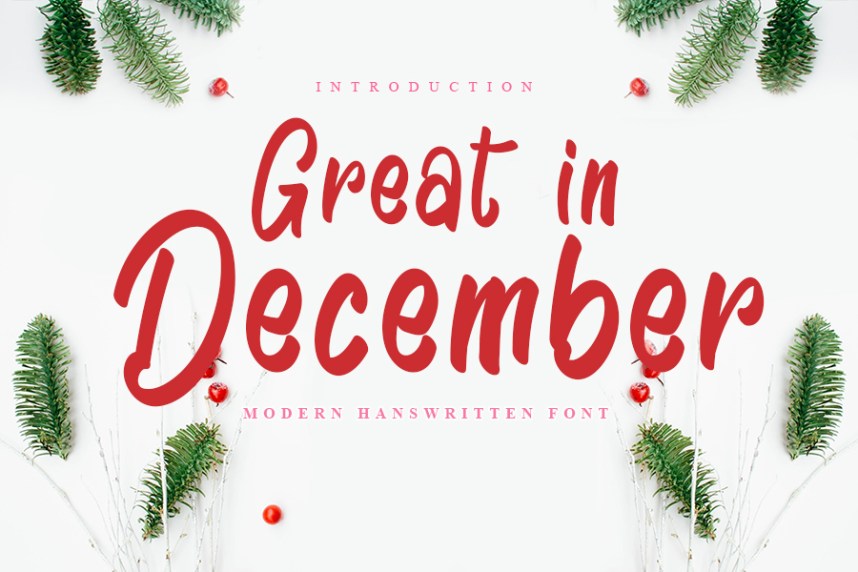
Great in December Font
Great in December Font is an elegant and bold display font, carefully handcrafted to become a true favorite. This font will look outstanding in any context, whether it’s being used on busy backgrounds or as a standalone headline!